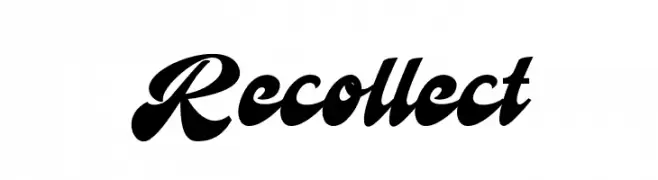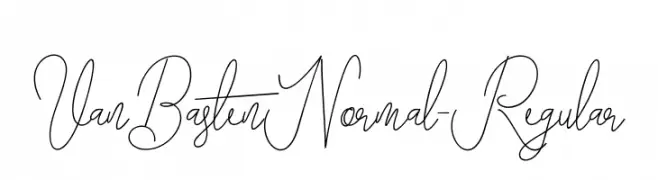
A calligraphic font with elegant swashes and flourishes, perfect for artistic projects.
An elegant script font with flowing loops and decorative flourishes.
An elegant and flowing script font with intricate swirls and loops.
An ornate and decorative script font with elaborate flourishes.
An ornate and decorative font with elaborate swirls and flourishes.
A bold, flowing script font with elegant curves and a handwritten feel.
A bold, cursive font with fluid, interconnected letters and elegant flourishes.
A graceful script font with flowing, interconnected strokes and elegant curves.
A dynamic, slanted script font with elegant curves and medium contrast.